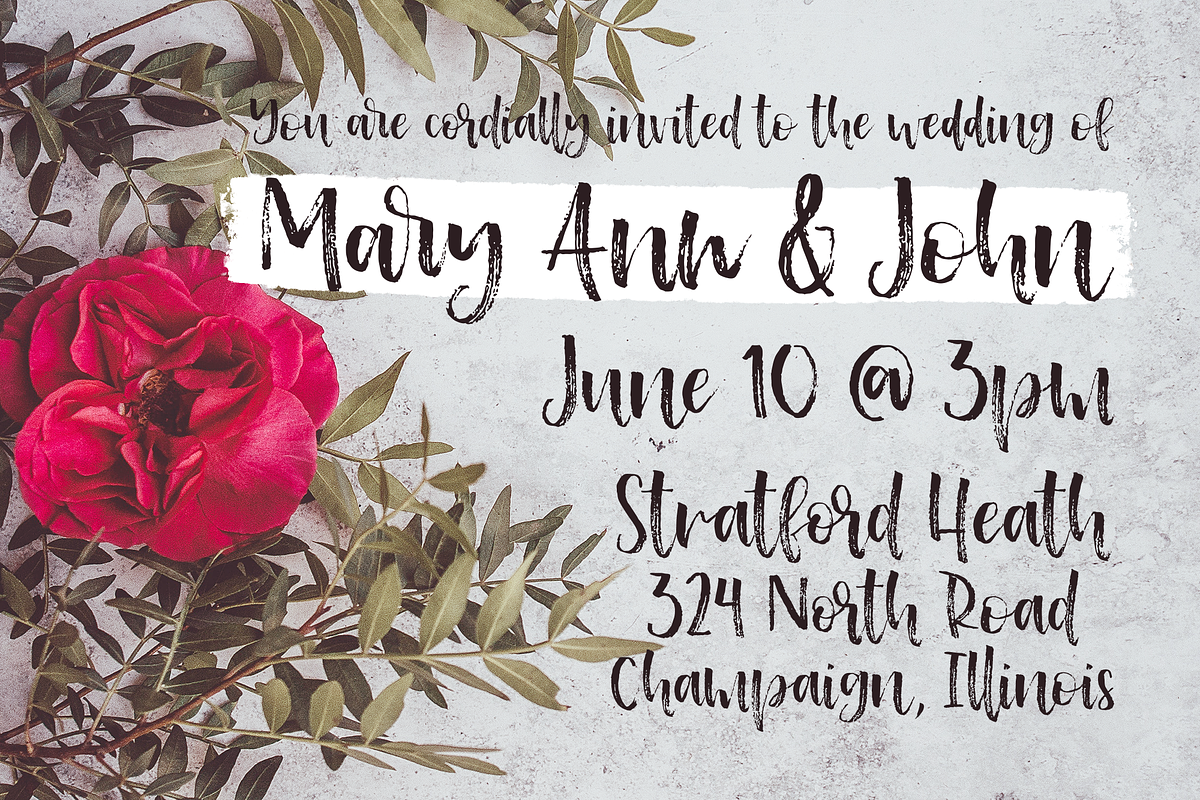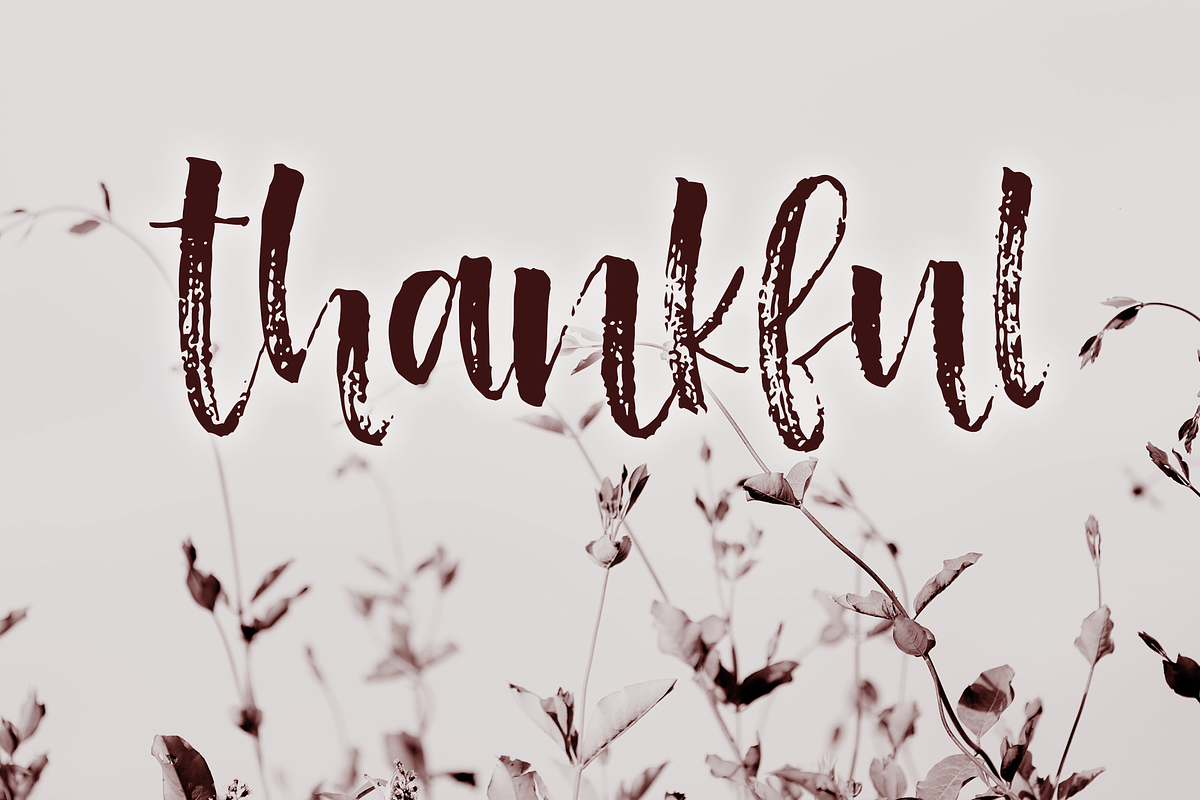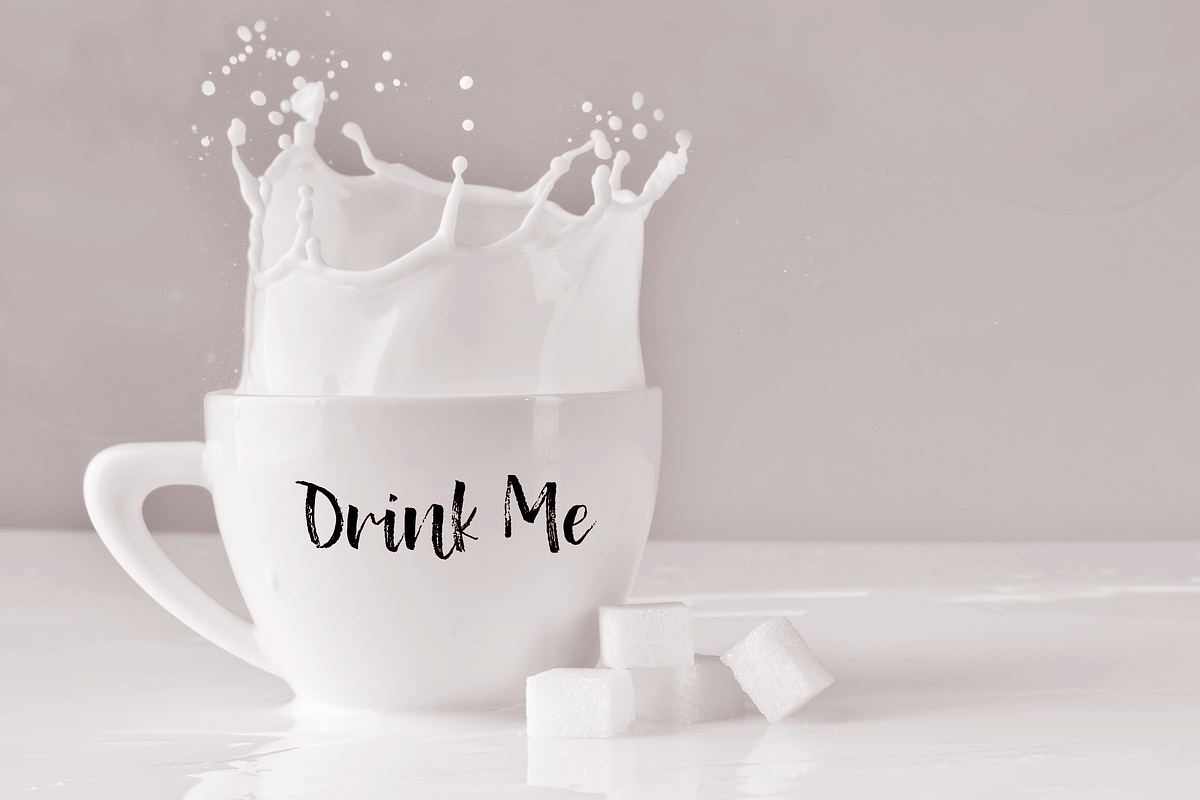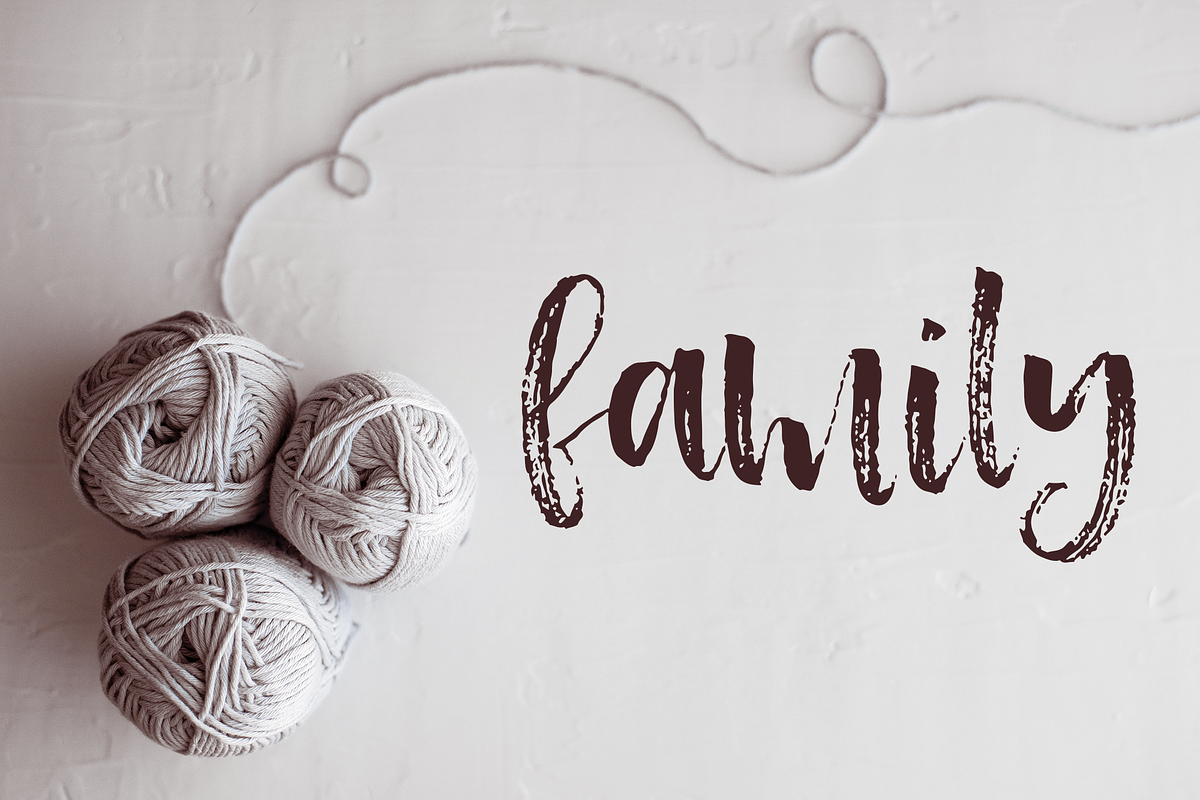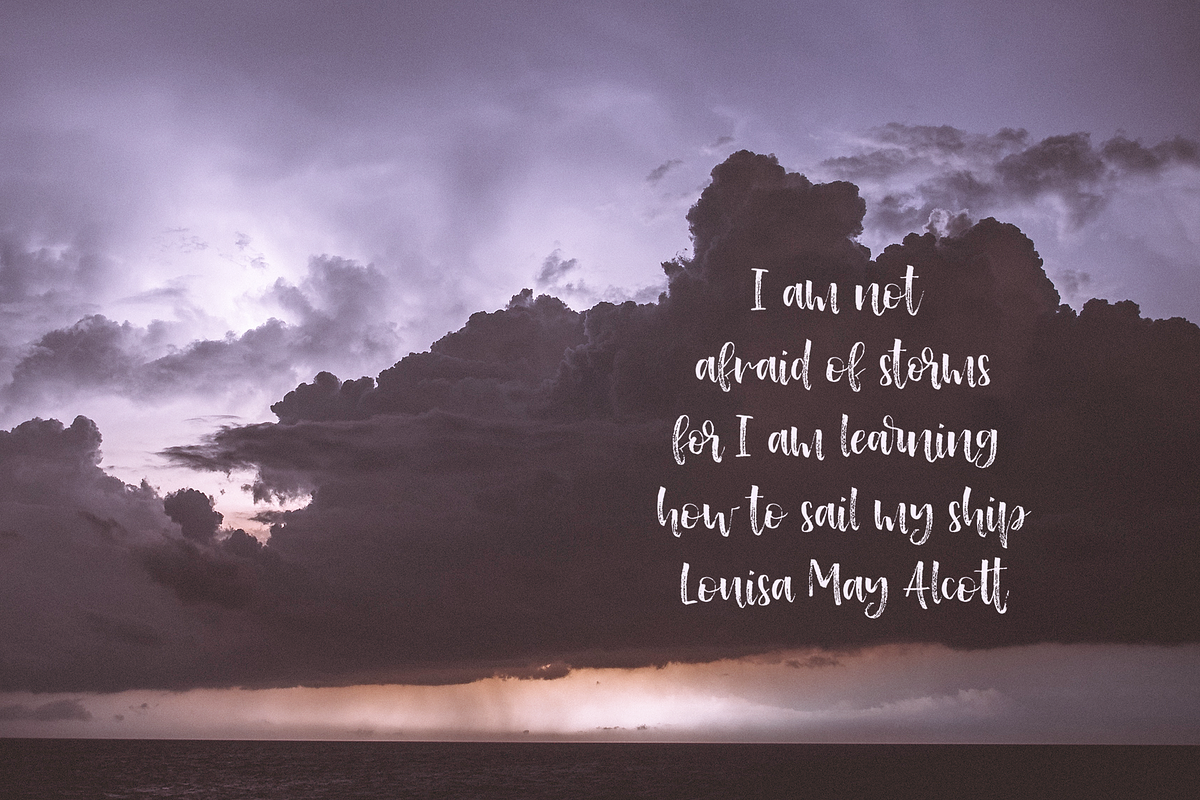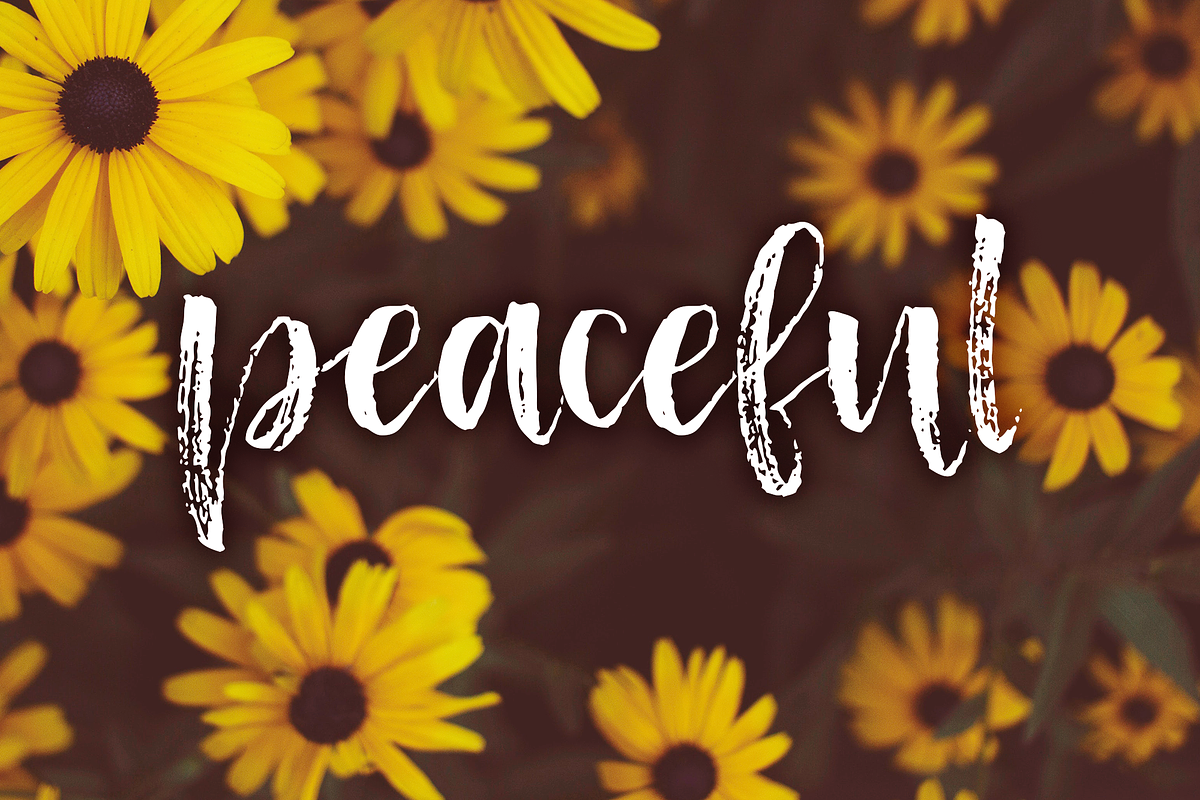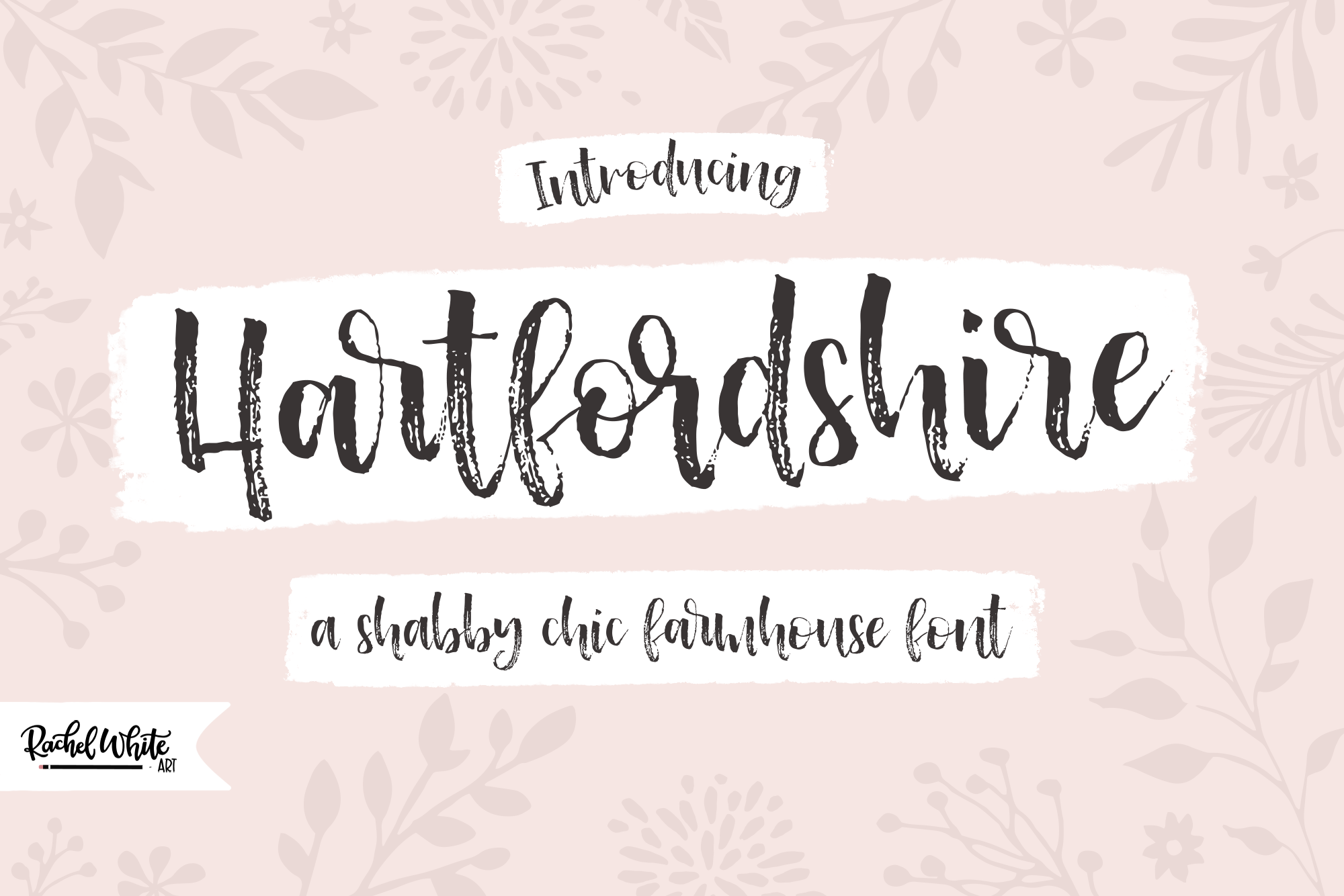
Hartfordshire, a farmhouse font
Hartfordshire is a hand-lettered script font with a casual, farmhouse feel. It’s full of cozy charm and works beautifully for home decor, rustic branding, farmhouse signs, and packaging.
With smooth curves and a handwritten style, Hartfordshire brings a friendly, approachable touch to any design. It’s perfect for everything from greeting cards and quote prints to labels and logos with a down-to-earth vibe.
Great for: Home decor, farmhouse signs, quote prints, rustic branding, packaging, logos